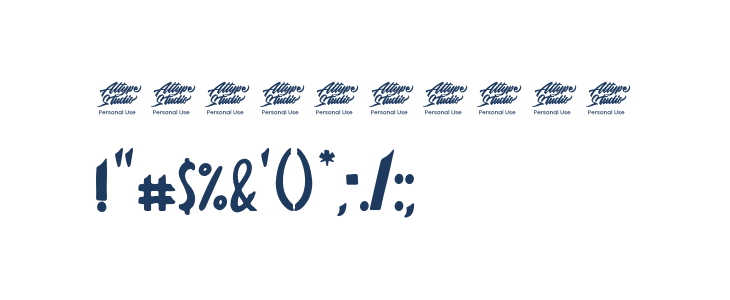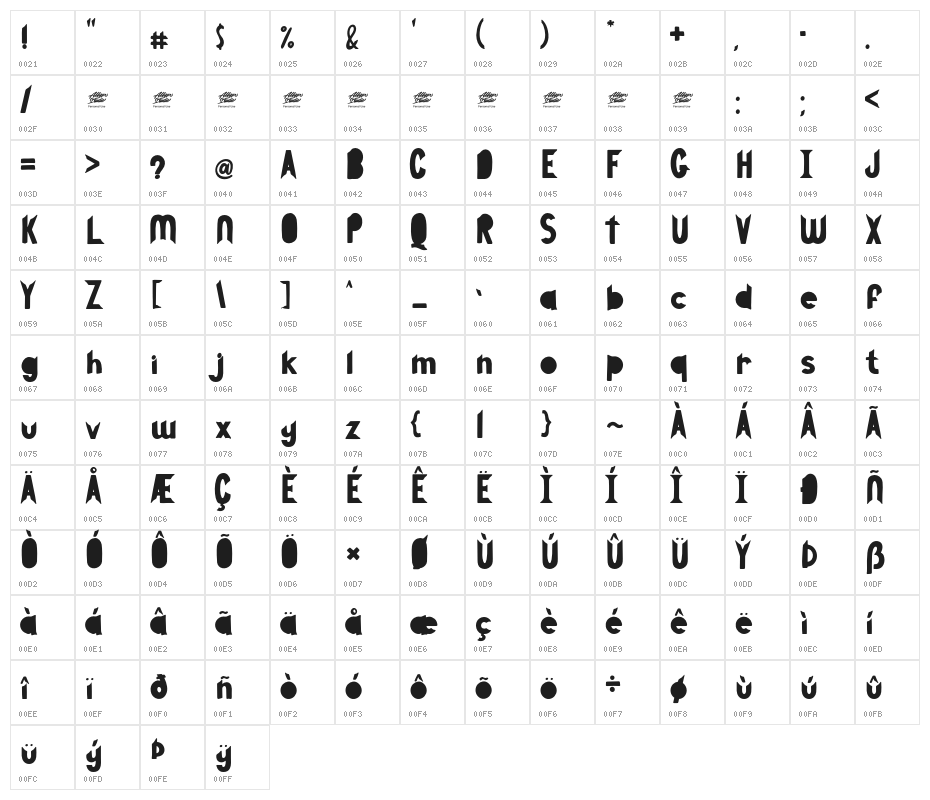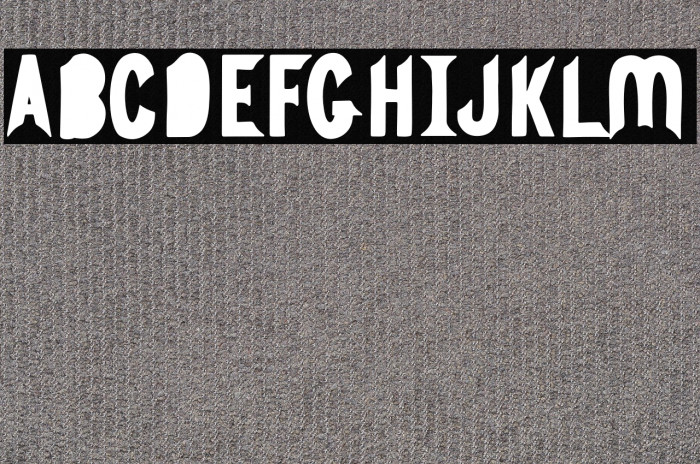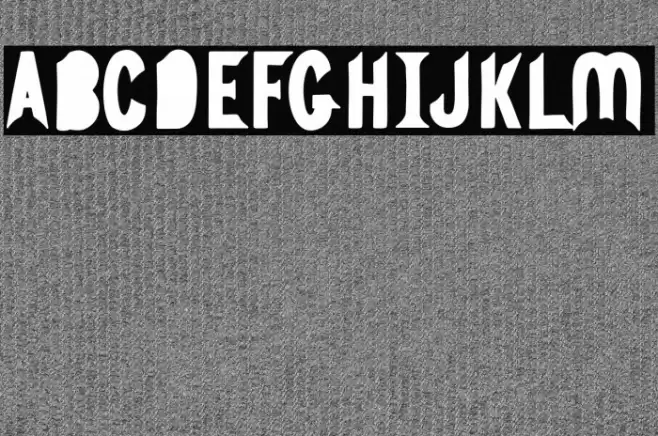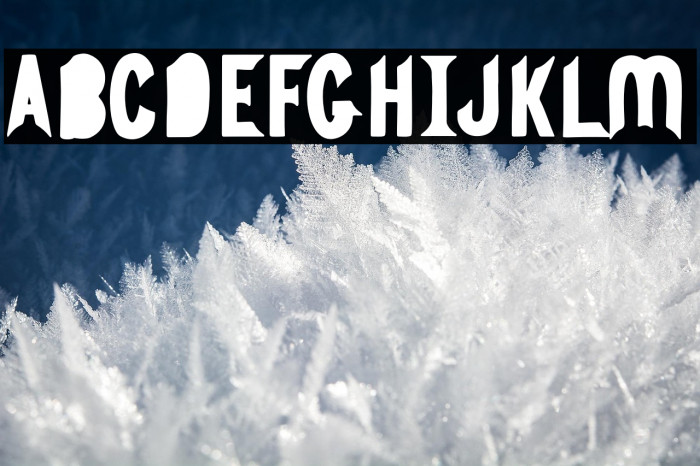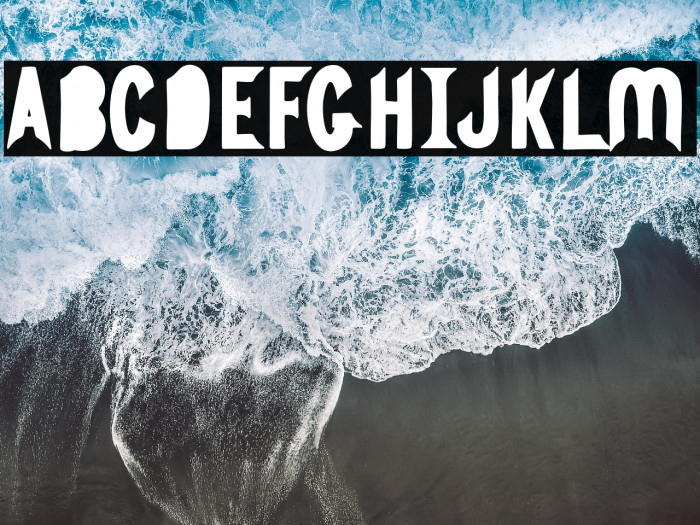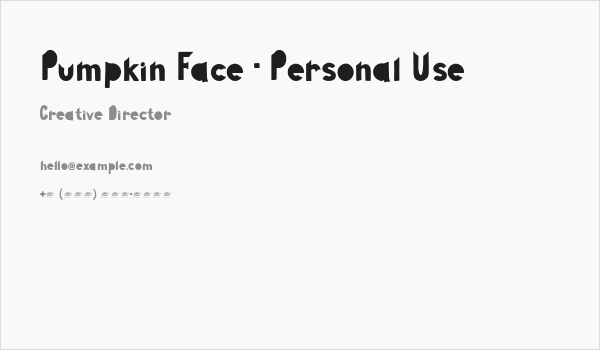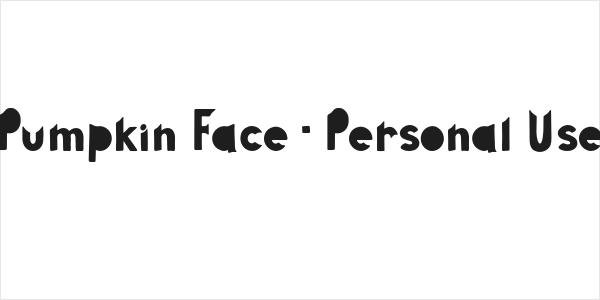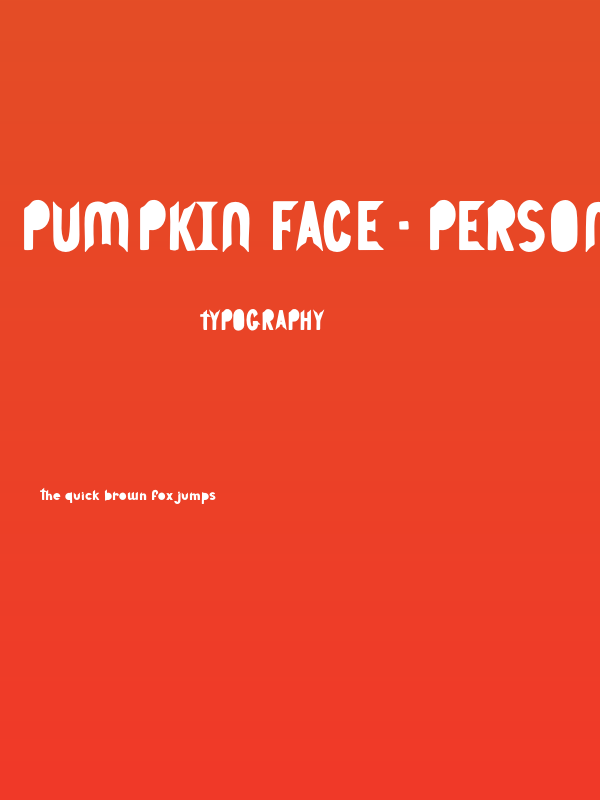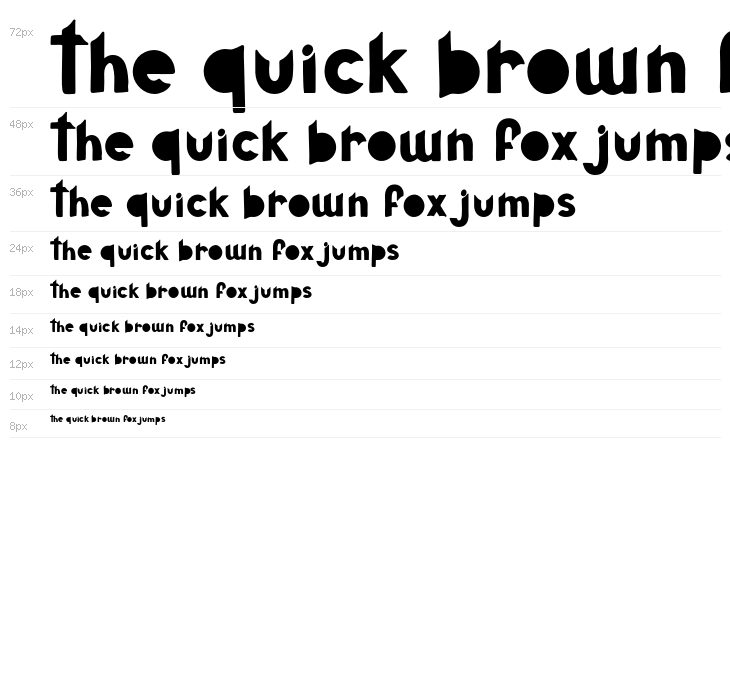
Pumpkin Face - Personal Use Font
This font features a playful and bold design, reminiscent of carved pumpkin faces, making it ideal for Halloween-themed projects. The characters have a whimsical, uneven quality, with exaggerated curves and angles that give them a hand-carved appearance. The uppercase letters are particularly striking, with their bold, chunky forms and unique character shapes. The lowercase letters maintain the playful theme, with a slightly more subdued style. The numbers and special characters follow the same design principles, ensuring a cohesive look across all text. This font's distinctive style makes it perfect for adding a fun, spooky touch to any design.
| Proposed Projects | Ideal for Halloween invitations, themed posters, party decorations, and children's book titles. |